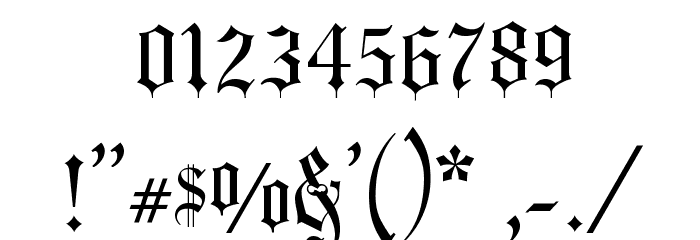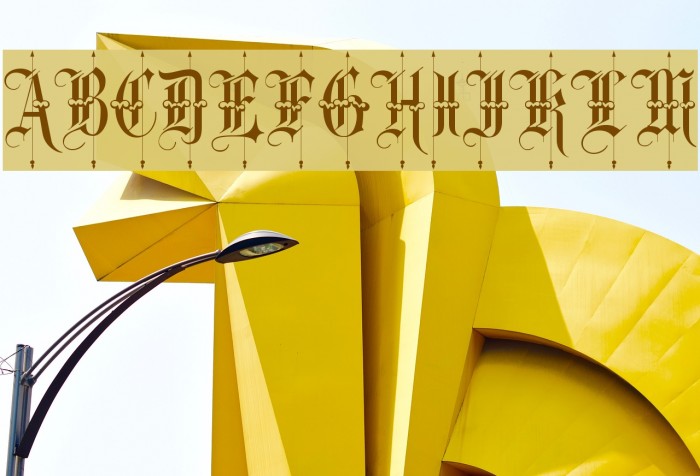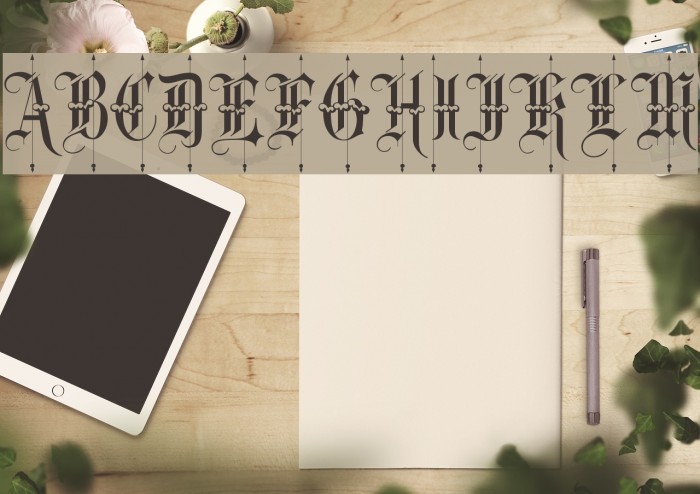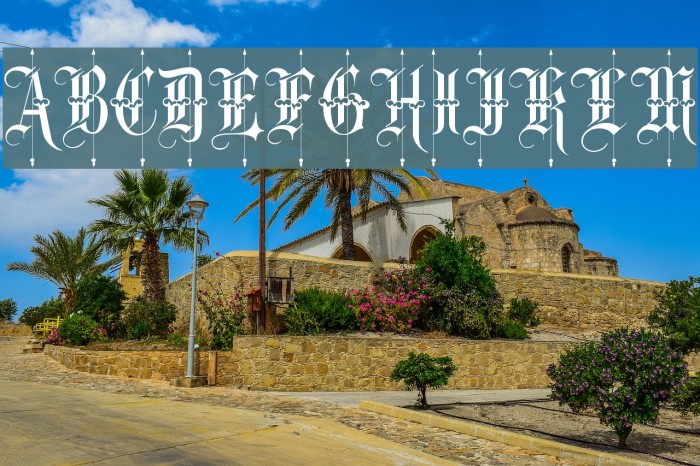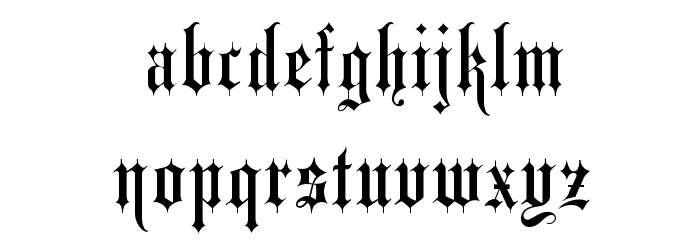
Showcard Font
Showcard Description
This font is a striking example of Blackletter style, characterized by its ornate and intricate design. The uppercase letters are highly decorative, featuring elaborate flourishes and sharp, angular lines that give them a gothic appearance. The lowercase letters maintain the same level of detail, with a slightly more restrained elegance that complements the uppercase set. Numbers and special characters are designed with the same attention to detail, ensuring consistency across all glyphs. The font's overall aesthetic is reminiscent of medieval manuscripts, making it ideal for projects that require a historical or dramatic flair.
| Categories | Gothic |
| Overall Style | Vintage |
| Use Case | Logos, Headlines, Decorative text |
| Proposed Projects | Ideal for historical documents, gothic-themed designs, book covers, and dramatic posters. |